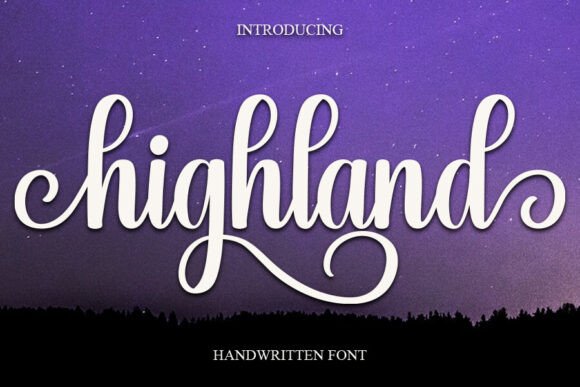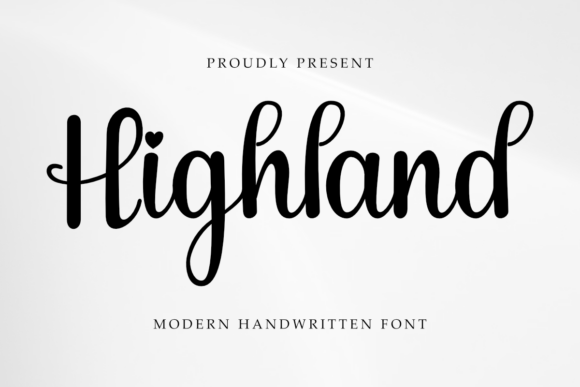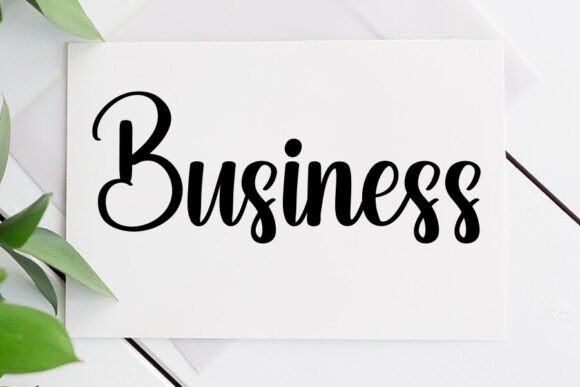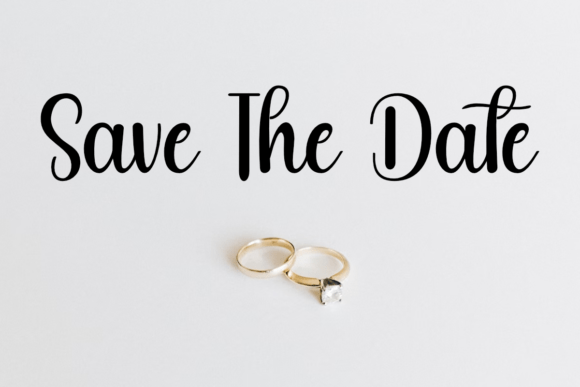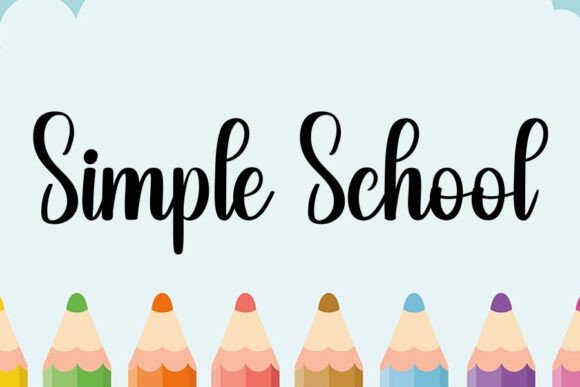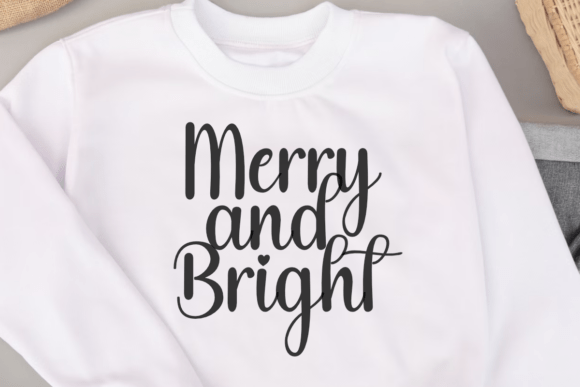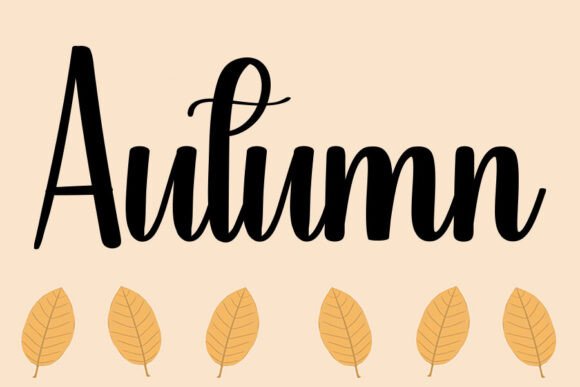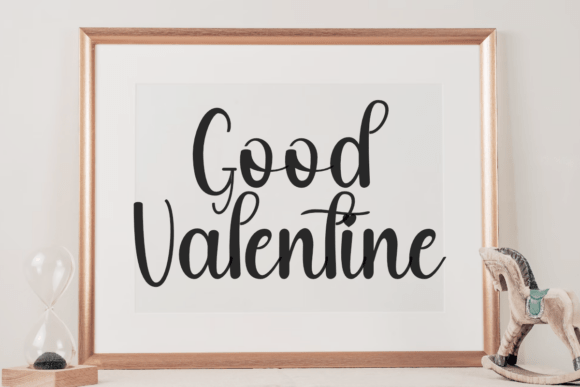
Highland Font: A Chunky Modern Font for Playful Designs!
About the Highland Font
Unleash your creativity with Highland Font, a versatile font perfect for a wide range of applications. Highland is a sweet and cursive handwritten font. This gentle font will look gorgeous on a variety of design ideas. It will add a joyful and romantic touch to each of your projects! Perfectly fit for branding, logo, wedding things, greeting cards, fashion, lookbook, marketing promotion, and any time you want your design to look fancy and elegant but still casual.
Highland’s delicate cursive style excels in applications requiring a touch of romantic elegance, such as wedding invitations, greeting cards, or branding for businesses focused on beauty, fashion, or artisanal goods. It works beautifully for short headlines, logos, and short-form text within a larger layout. However, its low x-height and cursive nature make it unsuitable for body text or UI elements where readability is paramount.
For optimal pairings, consider contrasting Highland with a clean sans-serif like Montserrat for a modern feel or a classic serif like Garamond for a more traditional approach. A geometric sans-serif such as Futura could also provide a striking counterpoint, creating visual interest and hierarchy.
Highland’s overall personality is best described as charming and sophisticated, conveying a sense of gentle elegance without being overly fussy. Avoid pairing it with fonts that are equally ornate; instead, prioritize clean and legible typefaces to ensure visual clarity and balance.
Highland Font Usage Examples
Highland Font Example